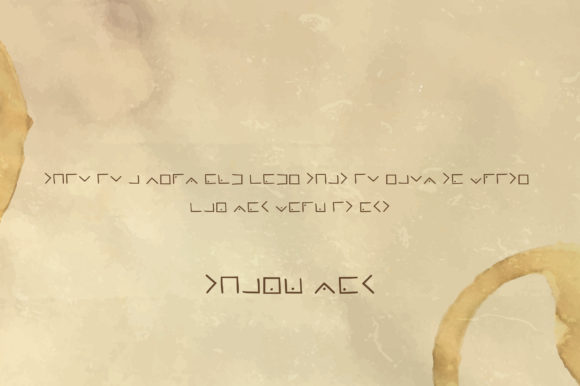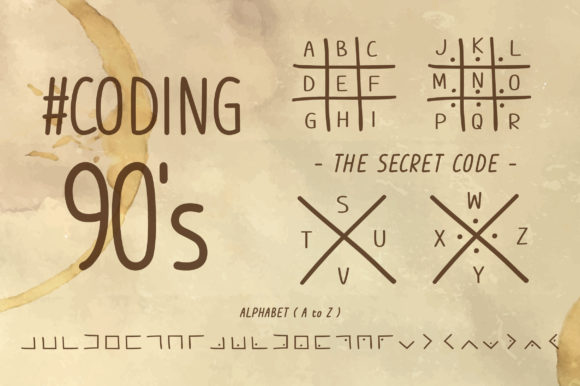
Secretcode Font
About Secretcode Font
Secretcode sounds like an intriguing dingbats font that can add an element of mystery and intrigue to your projects. If you’re looking to create and decode secret spy messages or simply add a touch of encryption to your designs, Secretcode can be a fantastic choice. Here are a few ideas on how to make the most of this font:
1. Secret Messages: Use Secretcode to write hidden messages in your designs. Each character in the font can represent a different letter or symbol, allowing you to create coded messages that can be deciphered using a key or legend. This can be a fun and interactive way to engage your audience or add an extra layer of challenge to a game or puzzle.
2. Spy-Themed Graphics: Create spy-themed graphics using Secretcode. Design posters, book covers, or illustrations that capture the essence of espionage and intrigue. Incorporate the unique characters of the font to enhance the visual appeal and reinforce the secretive nature of the design.
3. Escape Room Games: If you’re designing an escape room or puzzle game, Secretcode can be an excellent font choice to create clues and riddles. Use the characters to encode hints, instructions, or hidden messages that participants need to decipher to progress through the game. It adds an extra level of challenge and excitement to the experience.
4. Party Invitations: If you’re organizing a spy-themed party or event, use Secretcode to design the invitations. Write the event details in a secret code that guests have to decode to find out the location, time, and other important information. It adds a sense of adventure and anticipation to the party preparations.
5. Educational Activities: Secretcode can also be used in educational settings to teach coding, encryption, or critical thinking skills. Create worksheets or exercises where students have to decode messages or create their own coded messages using the font. It can make learning these subjects more engaging and interactive.
Remember, when using Secretcode, it’s essential to provide a key or legend that explains how each character corresponds to a letter or symbol. This way, your audience can decode the messages and fully appreciate the hidden meaning. With Secretcode, you can bring the intrigue of secret spy messages to your designs and engage your audience in an exciting and mysterious way.